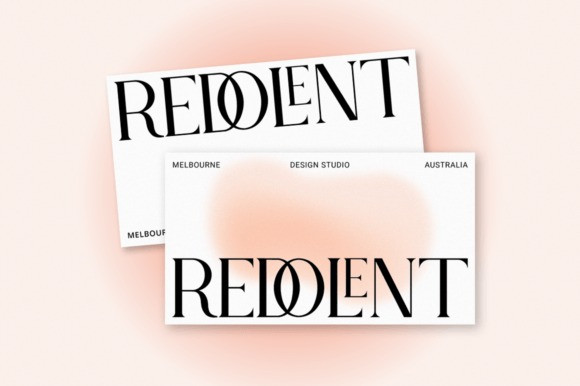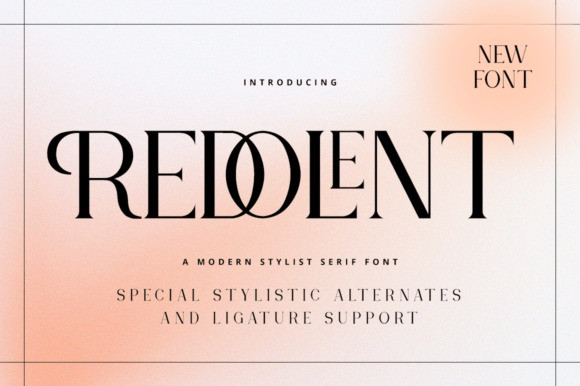
Redolent Font
Redolent Font is an elegant and thin-lettered serif font. It maintains its classy calligraphic influences while feeling contemporary and fresh. Fall in love with it and bring your projects to the highest levels!